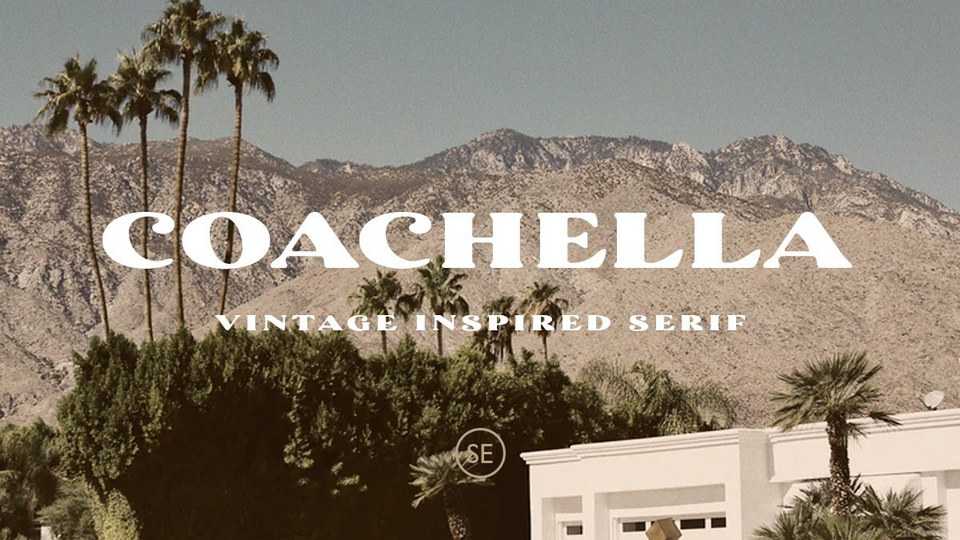
Download Coachella font, a retro inspired serif typeface that will make your project more vintage and modern. You can use Coachella font for any project, such as poster, music concert announcement, or for your logo.